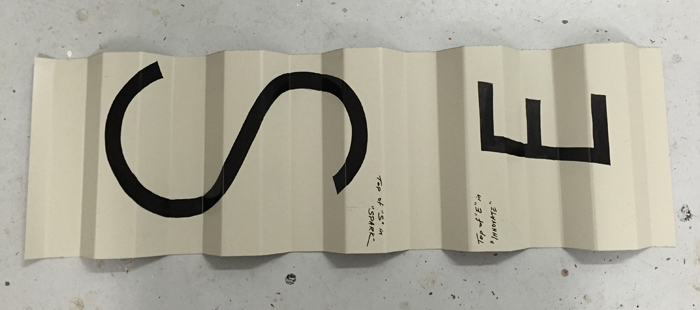
I have a project coming up in a couple of weeks where I need to do some basic helvetica lettering on a corrugated ceiling. The letters aren't that tall ranging from 8" - 15". The corrugation is really deep with the peaks & valleys each being about 2".
It's been a long time since I've lettered on corrugation and I don't think I've ever done any quite like this. I'll attach a photo of the metal.
Any tips on how to pounce my pattern so that I get as much of the lines as possible. It's going to be a challenge.
Lettering on corrugated metal
- Peaks & valleys are each about 2" with angled slopes.
Re: Lettering on corrugated metal
I did a really gnarly roll down gate not too long ago and found a few things that helped. Just pen plot/pounce your pattern as normal, pounce it on the surface on the highest ridges. Take a stabilo and fill in the gaps if needed by hand. Soft or hard fitch is going to be your friend. With letters that tall I'd consider a house painting brush, like a 1.5" purdy. Make sure you let the client know that it will look like it's painted on corrugated and keep in mind the "good from far, far from good" motto because it would take a long time to get it looking perfect. A good audio book and a dose of patience might help, good luck.
Re: Lettering on corrugated metal
Let me hazard a guess as to how I might attempt this.
Typeset the letters. Then stretch the font a bit side to widen the face(because when you press the pattern into the valleys the font will appear compressed).
Print the pattern onto white butcher paper. Spray the back side with low tack rubber spray adhesive like the kind to hold tee shirts for printing.
Rub the adhesive spayed pattern to your metal pouncing board and burn the pattern. If it holds well without magnets, it should hold on the cleaned corrugated metal job.
Then alien your pattern to the corrugation. Once you have it centered, start at the center with an old screen print squeegee and work the self sticking paper into the highs and lows of the corrugation. You could add bits of tape if there's a breeze. Then pounce your pattern.
Re: Lettering on corrugated metal
Pat - I always like to see how your brain works. This is an interior ceiling in a restaurant and relatively small letters on large corrugation. Breeze won't be a problem but magnets might be useful . . . unless it's aluminum.
Andrew - Prior to your response, I actually transferred the pattern on my sample the same way you had recommended. I used the artwork provided by the client, pounced a pattern on the peaks, extrapolated where the connecting lines would go in the valleys with a stabillo, and then lettered it accordingly. This will actually be viewed at close proximity so using a house painting brush isn't an option.
After sending it to the client, one of the comments was "We want this to have an artisan look . . . was the font we provided maybe a bit too tight? How would you hand letter it if you were just given the words and needed to come up with your own style? Oh, and what about the brush strokes we can see in the sample you provided? We want a hand crafted look but I'm not sure we want to see those strokes unless they're purposeful."
So I think I have the technique of lettering on the corrugation pretty much figured out. Now if I can just figure out exactly what my client is after. I'll try not to complain too much - after all, as long as I'm duly compensated, they're the ones helping to put food on my table. I just need to understand what they want, and I don't think you guys can help me with that one!
Re: Lettering on corrugated metal
Now that I see that the copy is following the corrugated lines, I will correct my message to say typeset the letters, and then stretch their height, not their width.
You are on your own about the clients disdain for brush strokes of hand lettering. lol